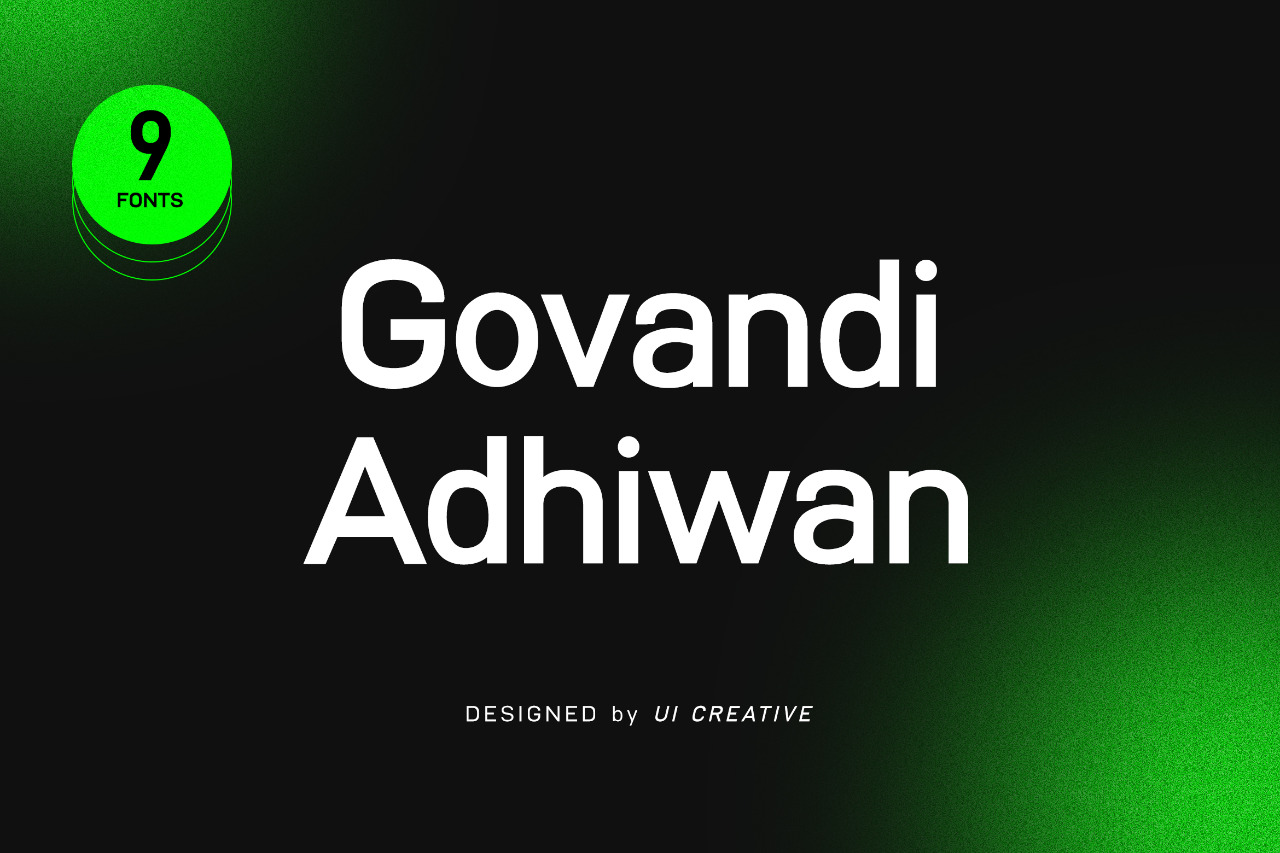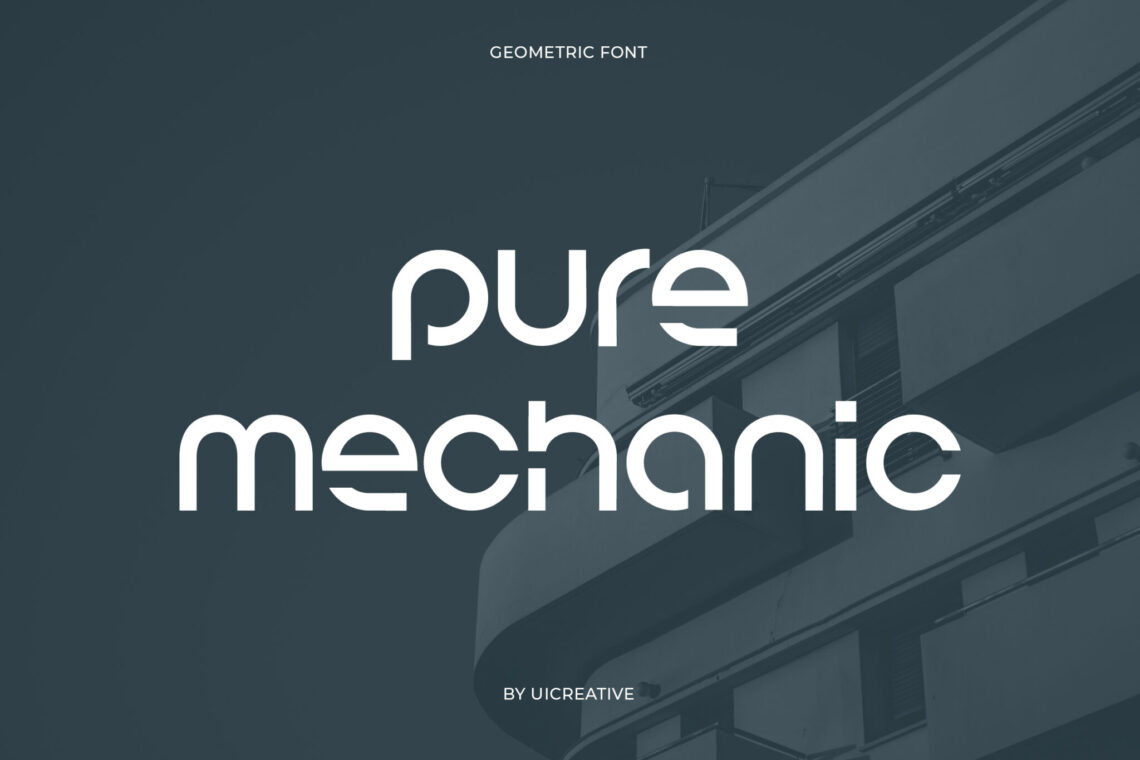
San Serif Font: How to Use and Types
So, what exactly are san serif font (best san serif font, san serif font examples)? When using a word processor to edit a written document or picture editing software to add some text to a photograph, most computer users are accustomed to seeing these names (serif, sans-serif, sans…) on their font list. However, it’s not enough for designers to just know what the fonts are called.
The fonts known as “sans serif” are those that exclude these decorative strokes. Widespread adoption didn’t occur until the Bauhaus movement in the 1920s. They were considered more up-to-date and casual than the traditional serifed fonts still used today.
Because of their exceptional screen legibility, the san serif font is commonly employed in today’s blogs and online newspaper articles with enormous volumes of text. They’re also commonplace in places like captions, titles, and shorter passages of text. Virtually everywhere! Sans-serif typefaces can be broken down into three or four distinct categories. Let’s get to know the nuances of each one!
Why are fonts and typefaces important?
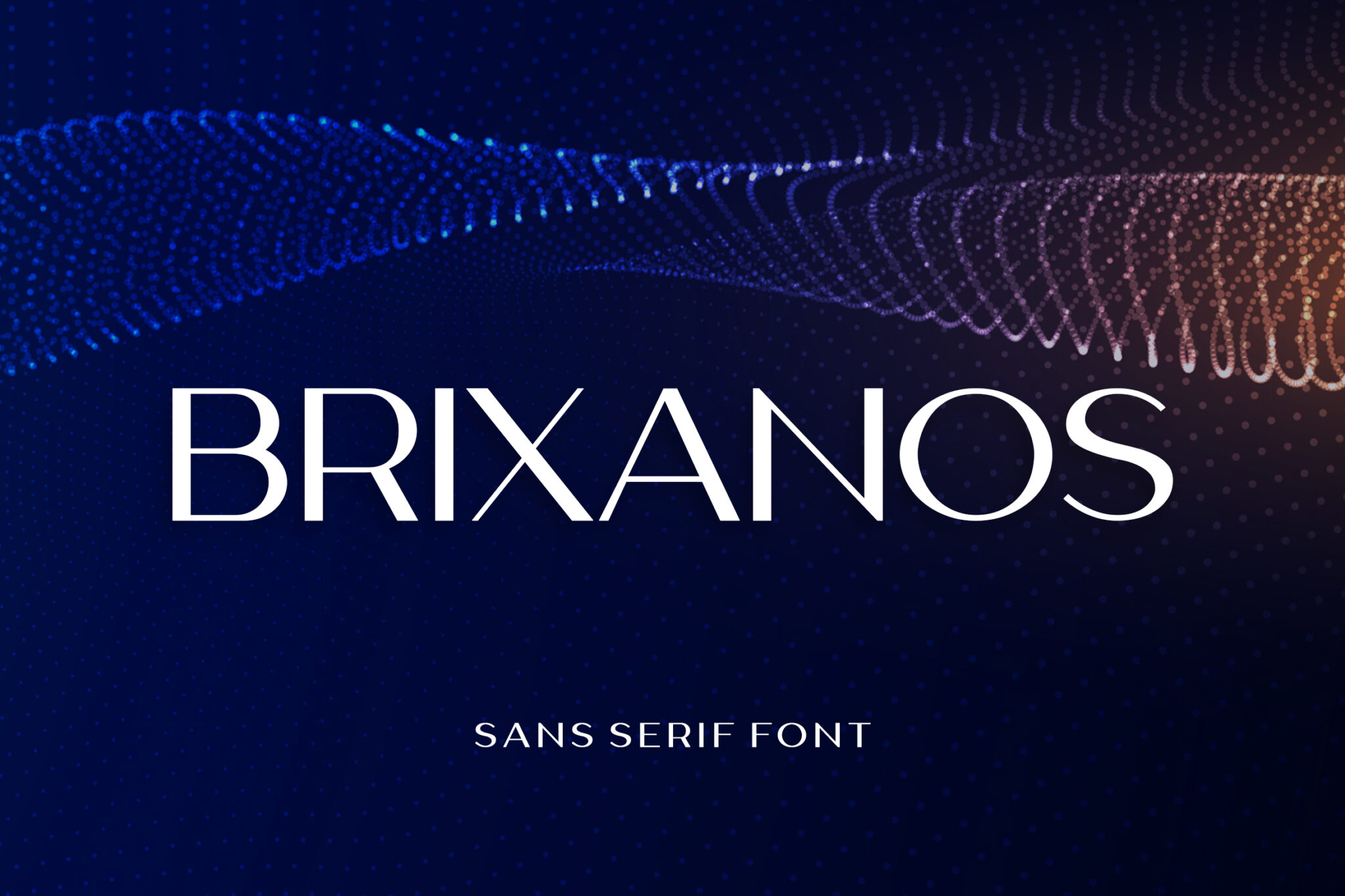
The typeface you select may appear of little significance, whether you are writing a marketing pamphlet or making a poster, but this is not the case. However, the typefaces you use significantly influence how effectively your message is communicated to your target audience and how much attention they pay to what you have to say.
If you pick the wrong typeface for your project, it might not be successful in accomplishing its goal. On the other side, if you use a typeface appropriate for the message you are trying to convey, it will be more effective and simpler to read.
Instructions for selecting an appropriate font
You should now be able to respond satisfactorily to the question, “What are serif and san serif font?” However, you may still be wondering how to select the most appropriate typeface for the job you have coming up next. The following are some suggestions that will assist you in reducing the number of available choices.
Think about your name brand
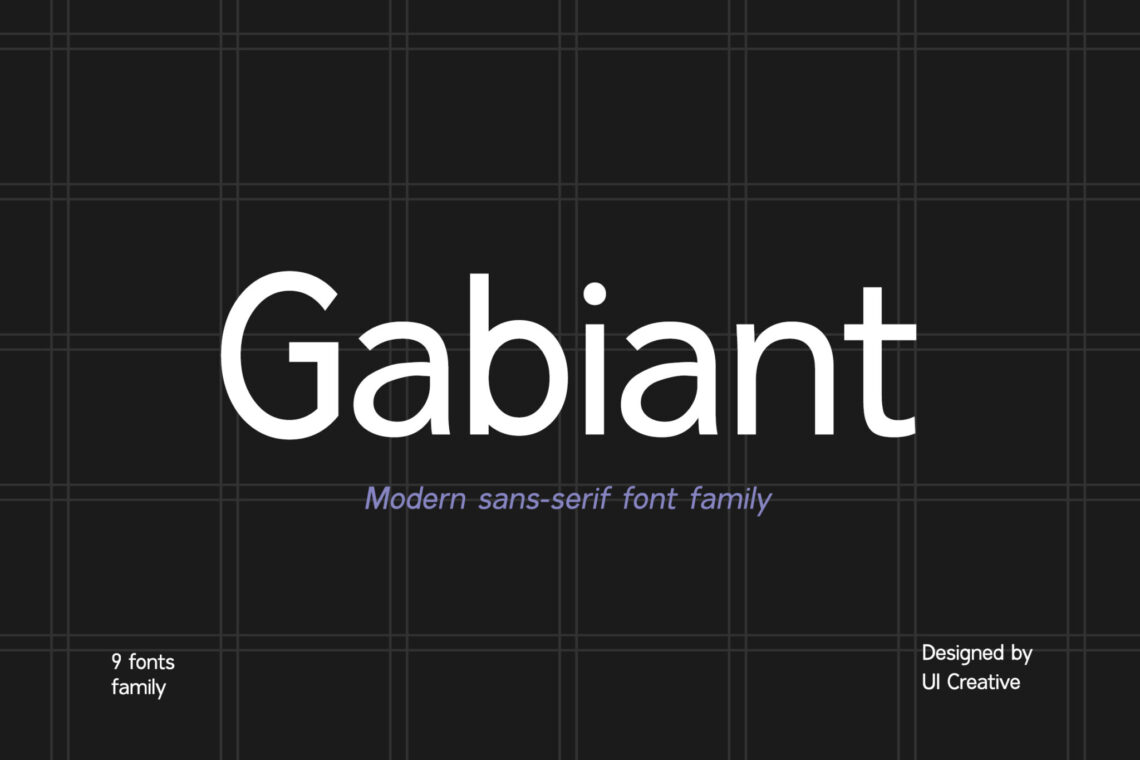
Considering the overall aesthetic of your company is the most efficient way to select a typeface. Are you a young person with a lot of vitality? Or one that is elegant and formal? Do you want to impress people with your contemporary aesthetic, or do you want to give off an impression of authority? Because serif and san serif font emit entirely distinct energies, as we have established previously, it is crucial to select the typeface that corresponds with the personality of your company.
Don’t overdo it
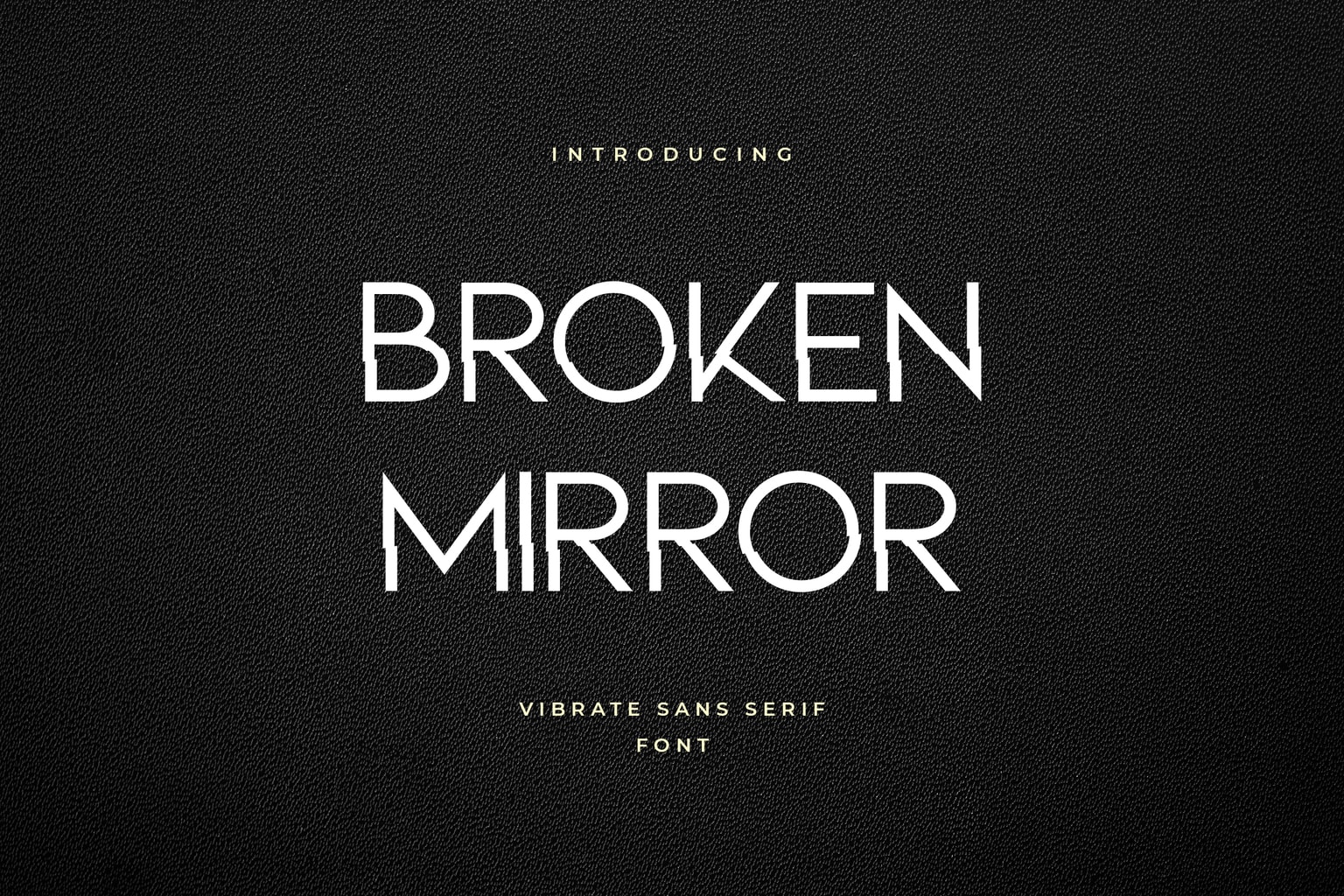
It is tempting to get giddy about your different typeface possibilities. Still, in most cases, limiting yourself to only one or two typefaces for each project is preferable. If you employ too many different typefaces, the reader will become confused, and your brand will lack a consistent and easily recognizable style.
Feel free to combine and contrast the styles
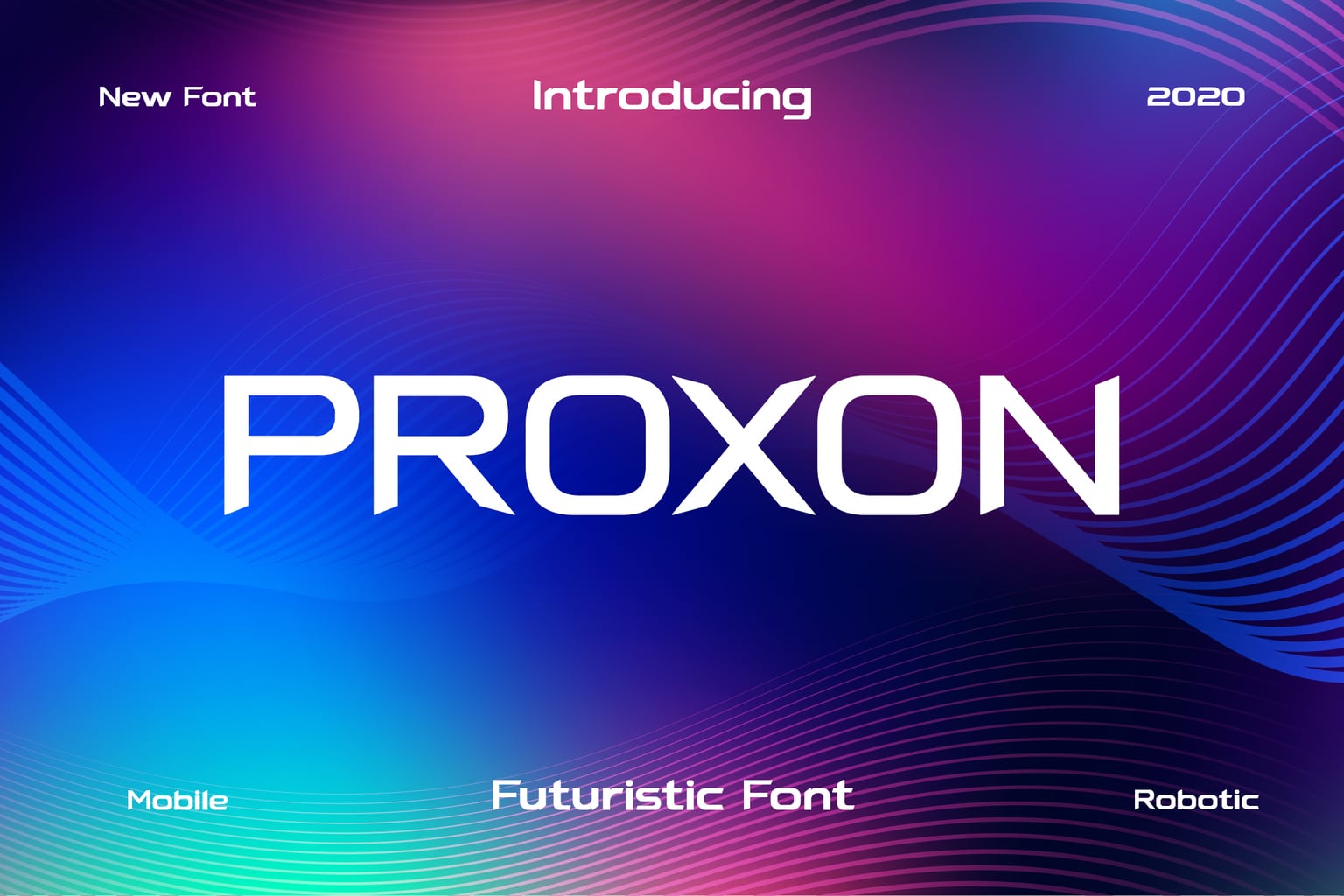
You shouldn’t be afraid to combine serif and sans serif fonts in your work, even if it’s likely best to limit yourself to selecting no more than a few different styles for your project. The result could be uninteresting if you choose only one typeface category. It is best to use one typeface for titles and another for the paragraphs that make up the body of the text to increase readability and create interest.
About San Serif Fonts
It is generally agreed that the san serif font is more contemporary than serif typefaces. Because they are missing the strokes that define a serif typeface, they are referred to using the French word “sans,” which translates to “without.” The terms “clean,” “minimal,” “pleasant,” and “contemporary” are frequently applied to the use of typefaces without serifs.
Arial, Helvetica, Open Sans, Calibri, and Verdana are five examples of the many sans serif types widely used today. Because of the lower DPI (dots per inch) that screens have compared to print, sans serif fonts are frequently chosen for large text groups when displayed on the internet. Children will typically have an easier time reading san serif font because they are more straightforward.
When should you use a Sans Serif font?
A typeface without serifs is the greatest option if you want to give the impression that you are approachable and pleasant. When seeking to project an image of youth, coolness, and laid-back sophistication, many businesses use a san serif font.
This typeface genre is frequently used by start-up businesses and technology organizations to communicate their approachability and forward-thinking attitude. Because of the improved readability, this font style is also the one that is most commonly used when developing websites, as was noted earlier.
Types of San Serif Font
The humanist, transitional, and geometric styles are the primary classifications of the best san serif font.
Although they can be more difficult to read, geometric typefaces are frequently used in the science and architecture fields. A couple of examples of geometric typefaces include Europa and Futura PT. These typefaces have in common that their designs are based on various geometrical components, such as squares and circles. The appearance of their design as being contemporary and uncluttered contributed to their meteoric rise to prominence during the 1920s and 1930s.